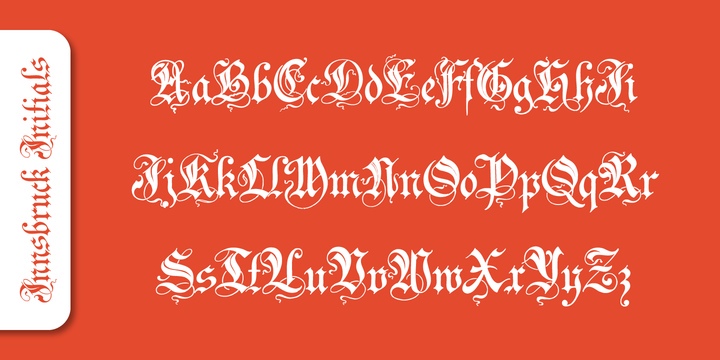
Innsbruck Initials Font
This ornate typeface is perfect for luxury monogram design, elegant drop caps, sophisticated wedding stationery, premium brand emblems, classical book chapter headings, exclusive club insignias, high-end personal branding, and refined certificate decorations. Innsbruck Initials Font delivers distinguished elegance in applications where traditional craftsmanship and aristocratic sophistication are paramount to creating prestigious visual statements.
What makes Innsbruck Initials Font so exciting is its exquisite interpretation of European calligraphic traditions with contemporary luxury appeal. The font features elaborately detailed letterforms with intricate flourishes and decorative elements that evoke centuries of fine craftsmanship. Each initial has been meticulously crafted to serve as both functional typography and decorative art, ensuring stunning visual impact while maintaining classical proportions. The typeface's regal character creates an atmosphere of exclusivity and refined taste, making it essential for brands seeking to communicate heritage, prestige, and uncompromising quality through their visual identity.
The Innsbruck Initials Font includes comprehensive alphabetical variations: Uppercase, Ornamental, Flourished, and Shadow versions. This prestigious collection provides designers with sophisticated tools to create luxurious monograms and establish elegant typographic focal points. Each style maintains the font's inherent nobility while offering different levels of decorative embellishment for various high-end applications and classical design themes.
Whether you're developing luxury brand emblems, creating exclusive wedding materials, or designing prestigious corporate identities, Innsbruck Initials Font Free Download offers the aristocratic aesthetic that discerning clients expect. Its noble character makes it particularly suitable for luxury hotels, private clubs, fine jewelry brands, and premium service establishments. The font's majestic presence ensures memorable impact in both ceremonial applications and sophisticated branding materials, while its timeless appeal connects contemporary luxury with classical European elegance.
This distinguished initial typeface represents the pinnacle of decorative typography for brands seeking to communicate heritage, exclusivity, and unparalleled sophistication.